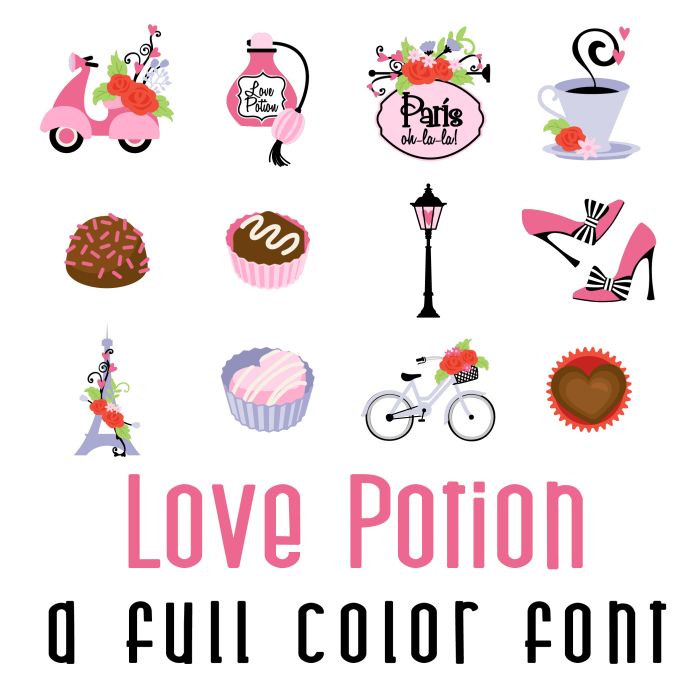
This fun full color font features 26 love, valentine and Parisian imagery. Use for Valentines, cards, crafts, decor, gifts, planner stickers, scrapbook pages, classrooms and more!